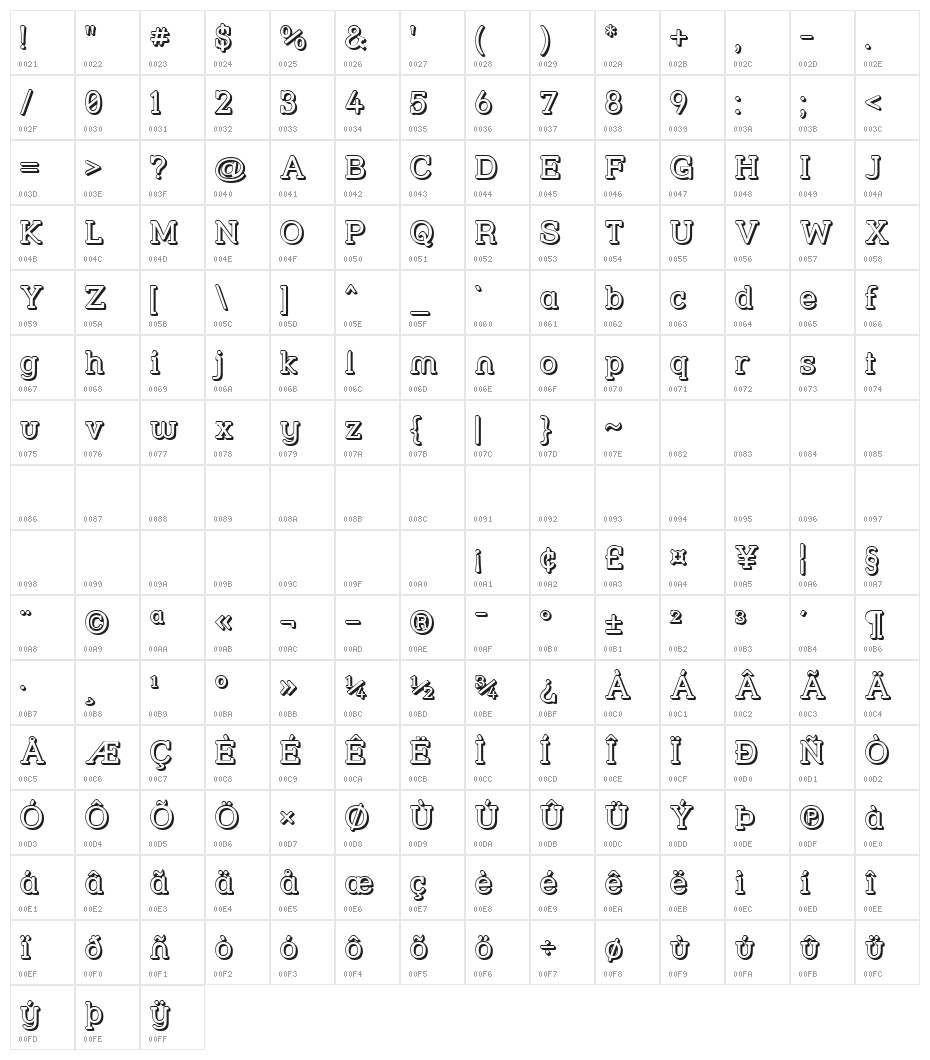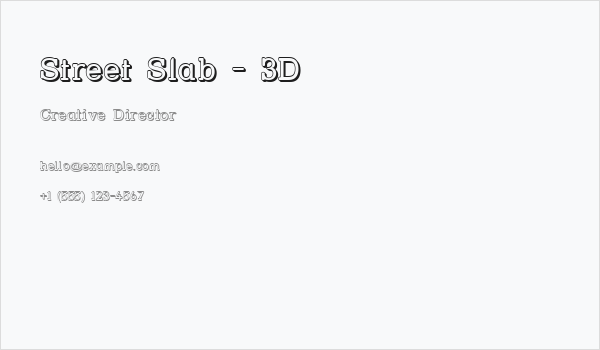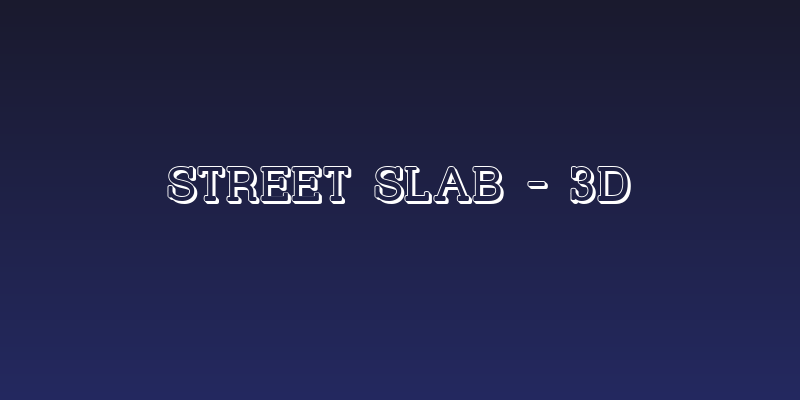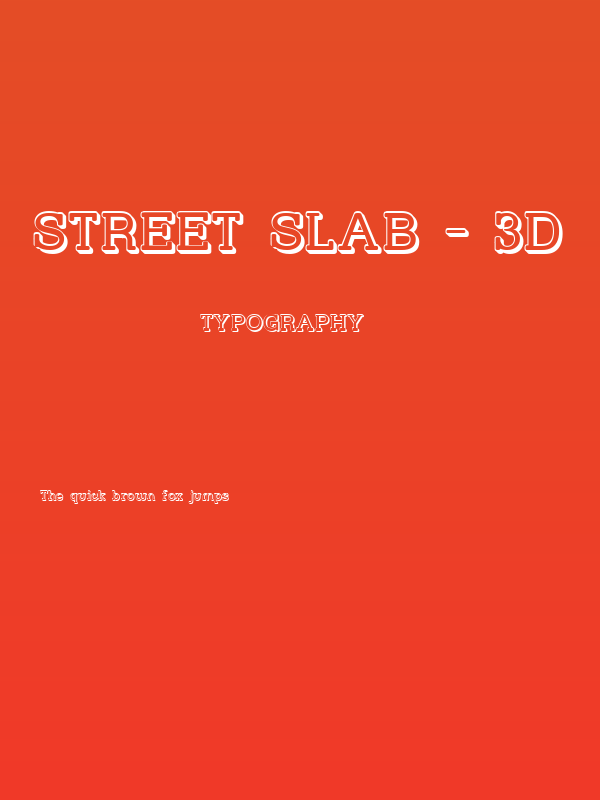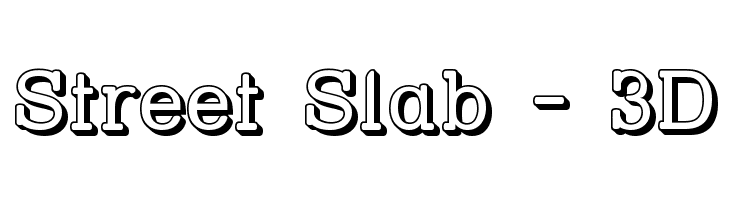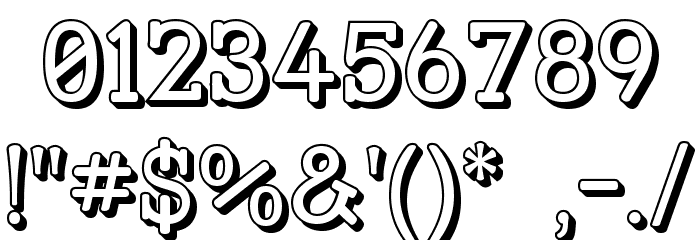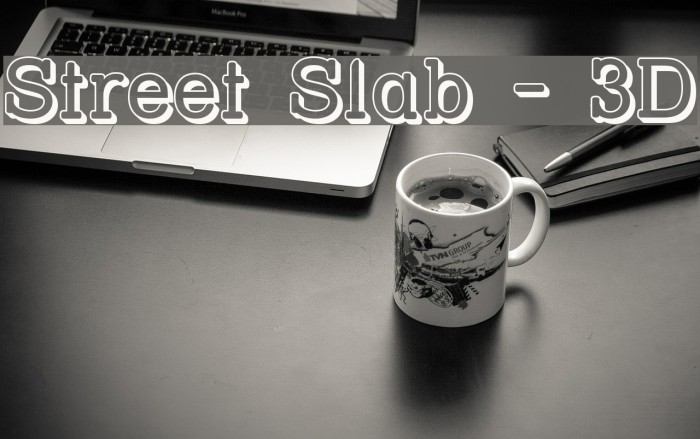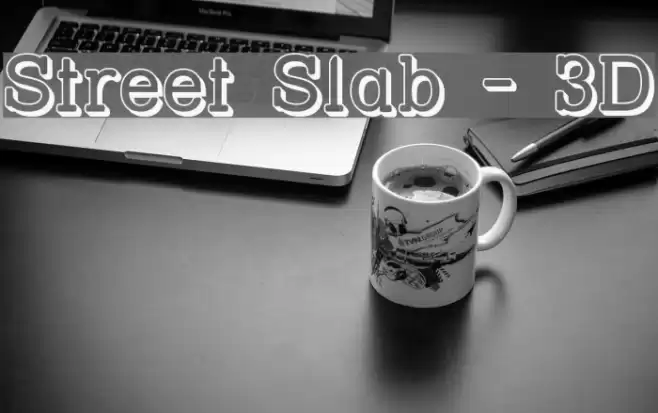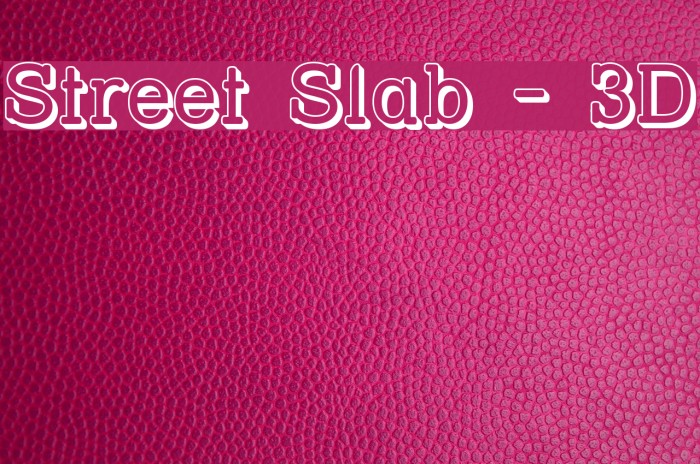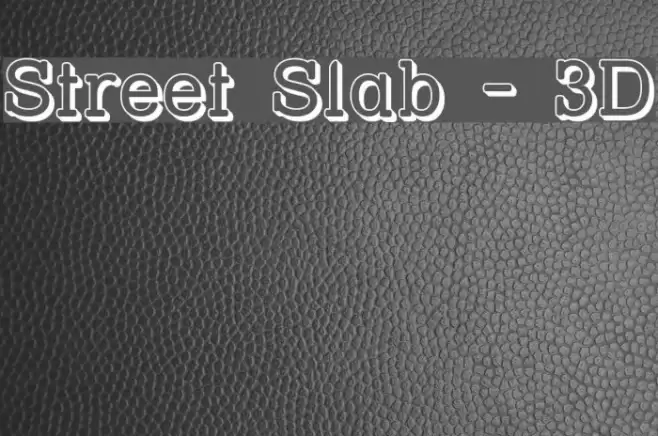
Street Slab - 3D Font
Street Slab - 3D Description
This font features a bold, three-dimensional slab serif style with a strong presence. The letters are outlined, creating a shadow effect that gives depth and a sense of solidity. The uppercase and lowercase characters maintain a consistent weight, enhancing readability while adding a decorative touch. The numerals and special characters follow the same design principles, ensuring uniformity across all glyphs. The font's structure is robust, making it suitable for impactful designs where attention is key. Its unique 3D effect is achieved through precise line work and spacing, providing a modern twist on traditional slab serif fonts.
| Overall Style | Modern, Decorative |
| Proposed Projects | Ideal for posters, headlines, logos, and any design requiring a bold, eye-catching typeface. |